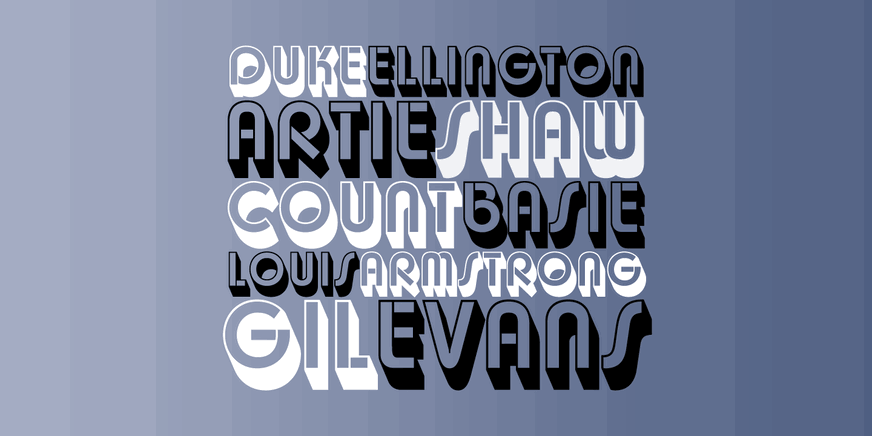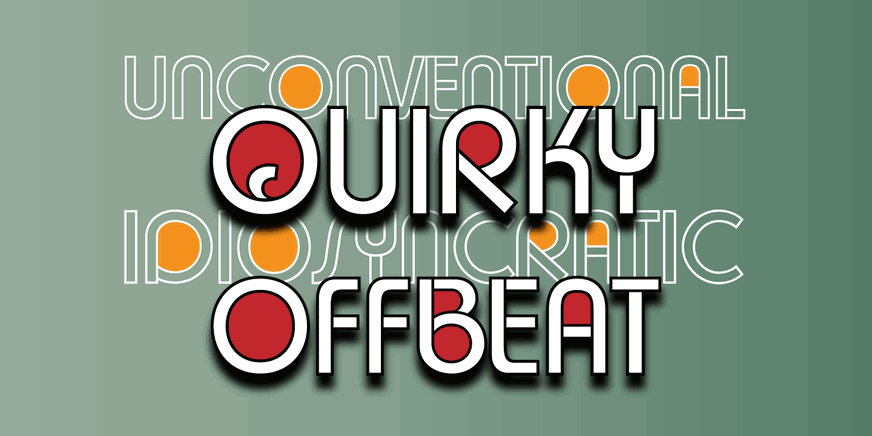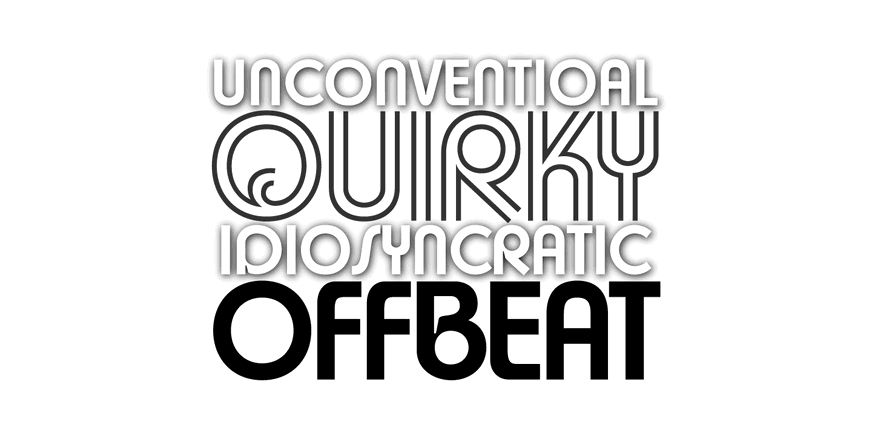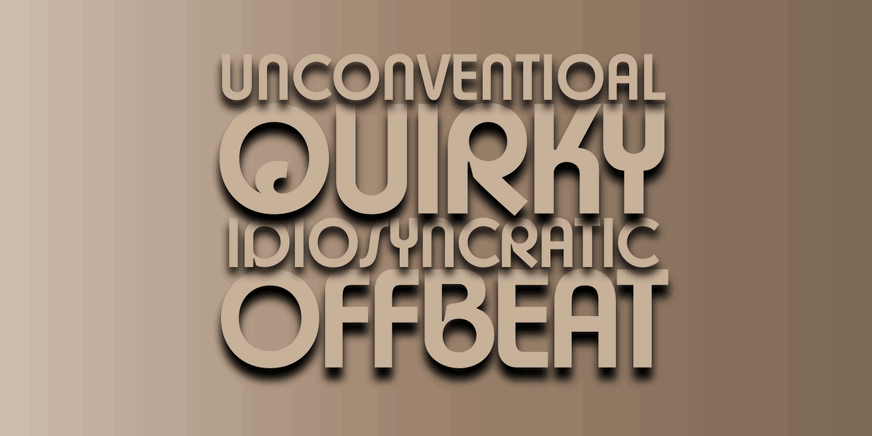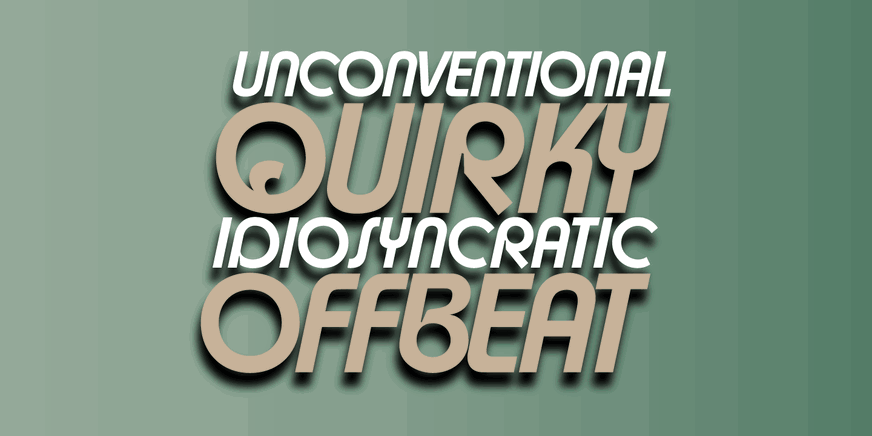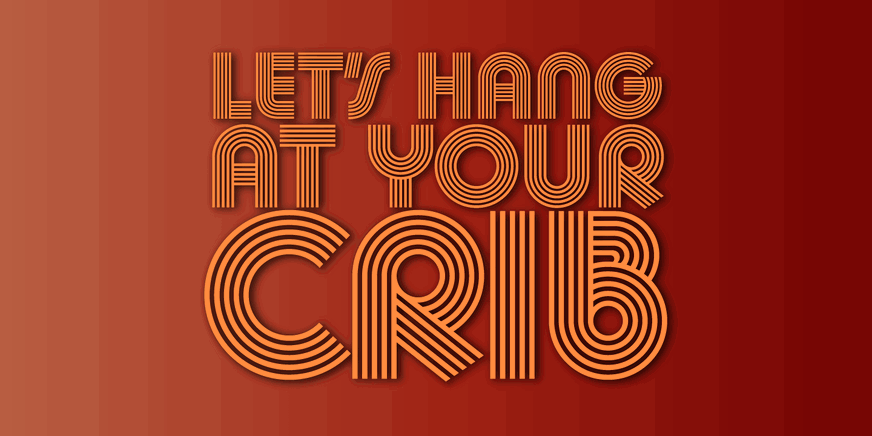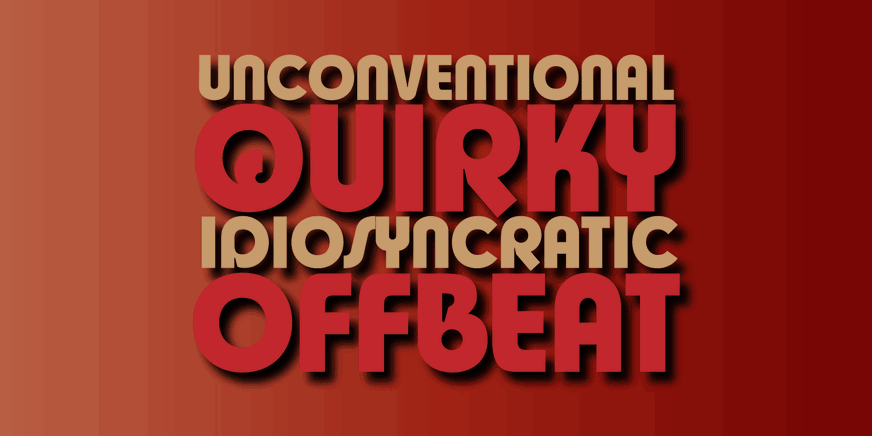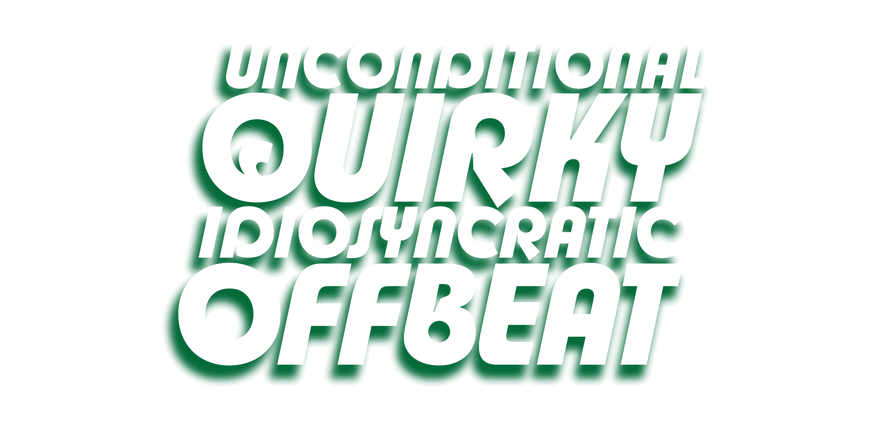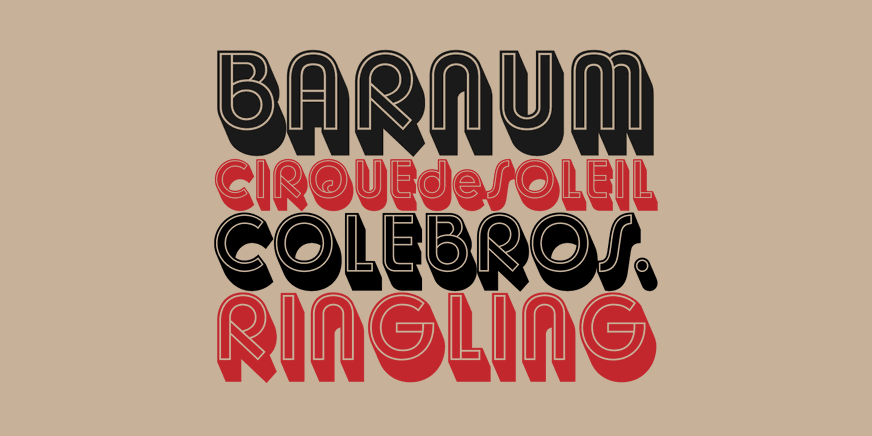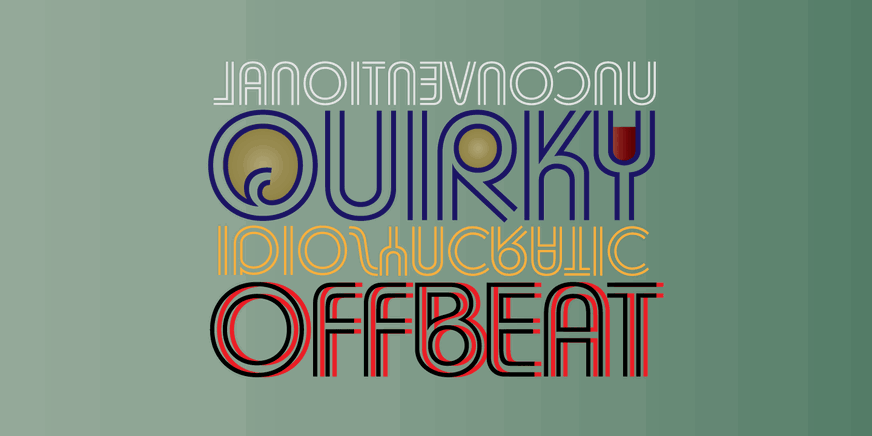
Churchward Design
Font Family by BluHead Studio
This typeface is Joseph Churchward's take on the classic geometric funk type aesthetic of the early 1970's. Churchward Design is a super huge family (76 fonts!) with a dizzying array of typeface styles. In digitizing these first nine fonts, we selected a wide sampling of the styles and have only scratched the surface of gems from this far out family! From the very usable text weights to the crazed Mystic Shadow and Design Lines, each font possesses that signature quirkiness that only Joseph Churchward could conjure up!
All of the fonts support an extended character set that covers many western and central European languages as well as both proportional and tabular figures.